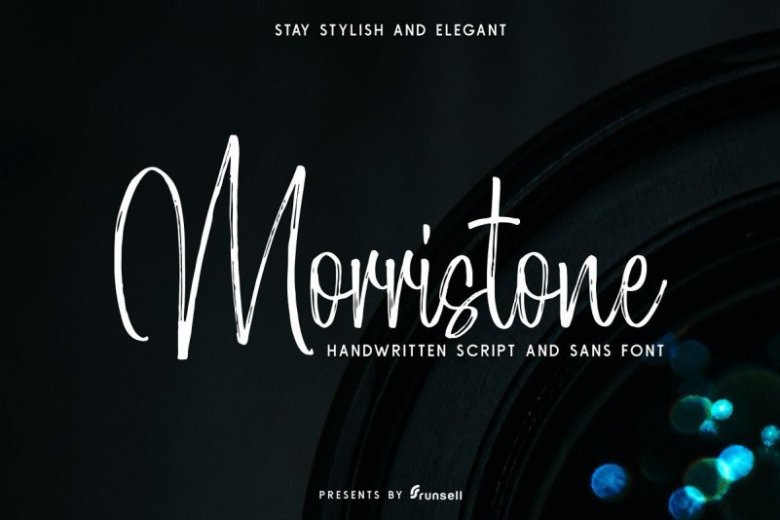
Morristone Font Duo
Continue to be a new duo font. Introducing Morristone Script & Sans Font! Are you ready for the font duo? A rough hand drawn brush script paired with an industrial-style condensed san-serif.
With smooth, hand drawn curves and a rough brush-stroke texture, the brush script has a unique personal feel, with easily adaptable letterforms. The San font bold and powerful, with unapologetic simplicity. This condensed font is perfect as a standalone font, but contrasts beautifully with its brush-stroke brother.
It’s a typical font with such a signature look with natural flow and has the texture inside. This font can make your design look authentic and handcrafted. Morristone Script & Sans suitable for this use in you for the signature, logotype, invitation cards, quotes art, website header design, packaging, branding and more. This font is always exciting to design you create.